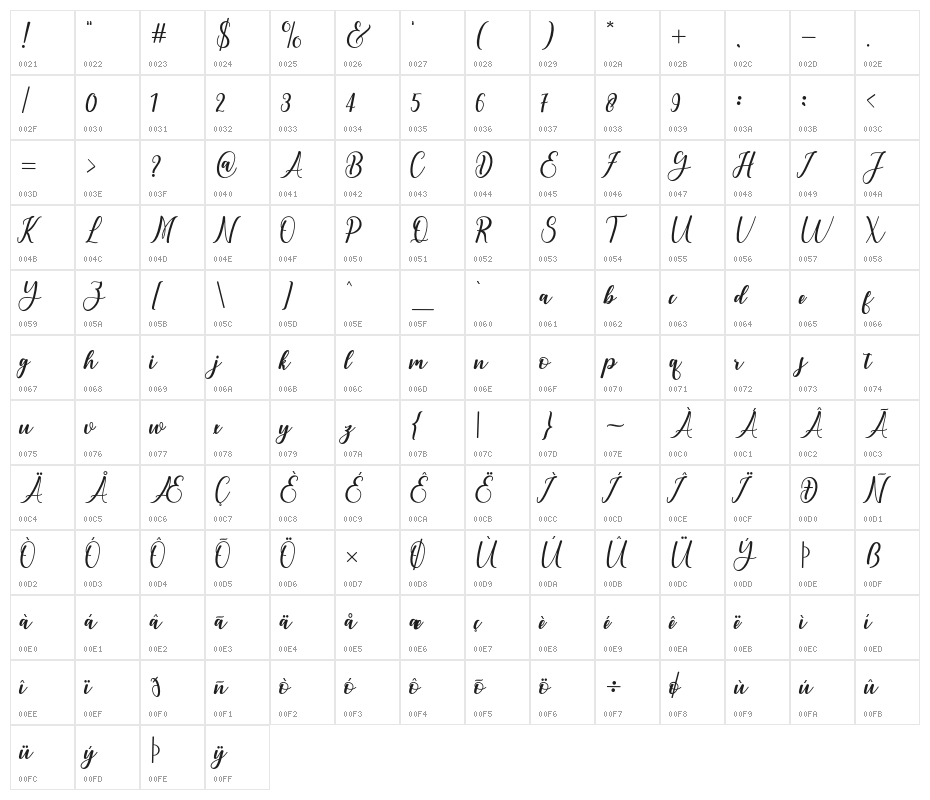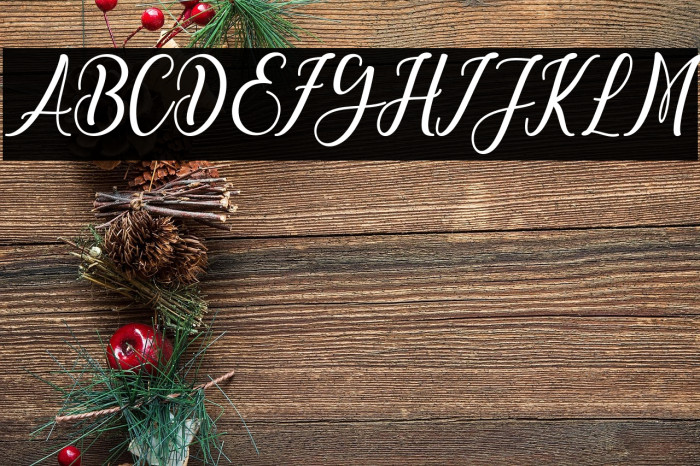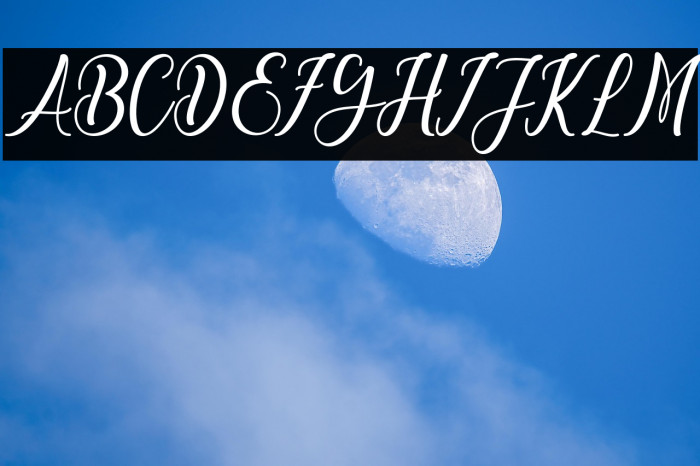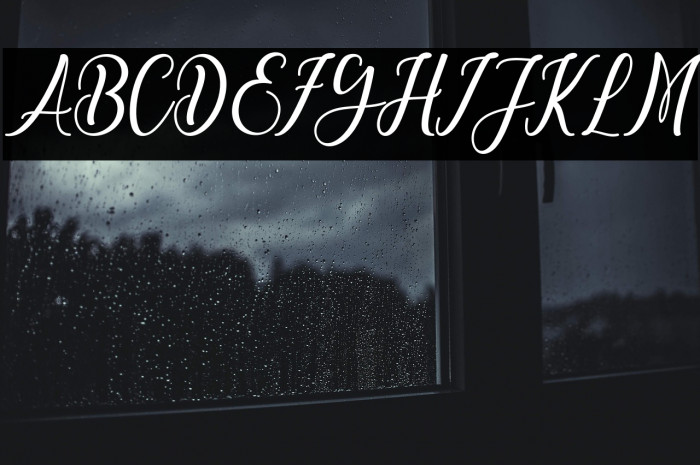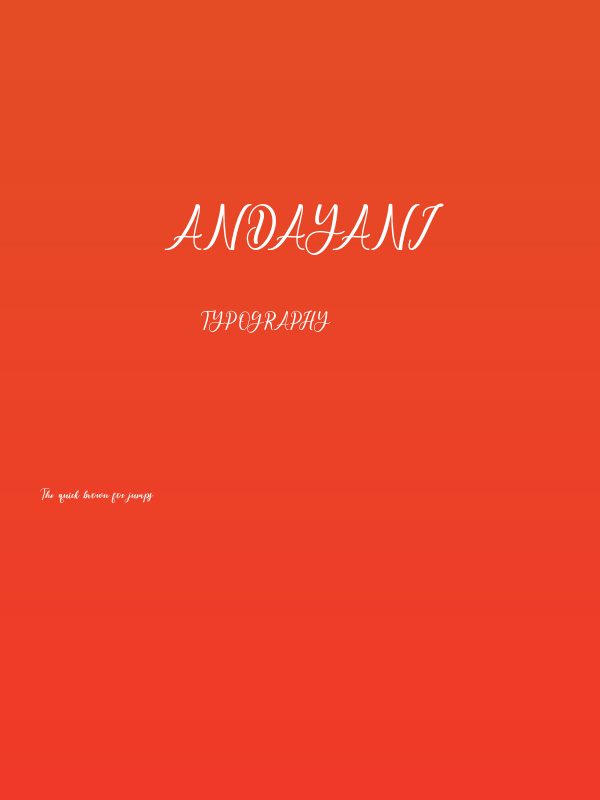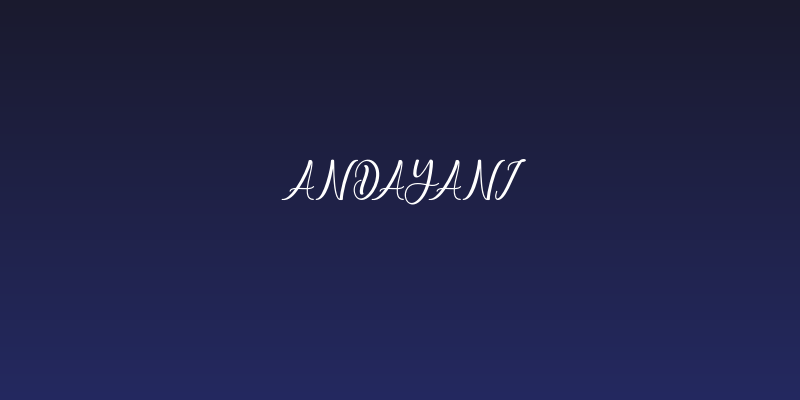
andayani Font
andayani Description
This elegant script font features flowing, cursive letterforms with a sophisticated flair. The uppercase letters are tall and graceful, with sweeping curves and loops that give a sense of movement and fluidity. The lowercase letters are equally stylish, with a more compact and rounded appearance that complements the uppercase. The numbers and special characters maintain the same elegant style, ensuring consistency throughout. This font is perfect for projects that require a touch of elegance and sophistication, such as wedding invitations, luxury branding, or high-end product packaging.
| Overall Style | Elegant, Sophisticated |
| Use Case | Logos, Invitations, Branding |
| Proposed Projects | Ideal for wedding invitations, luxury branding, high-end product packaging, and elegant stationery. |